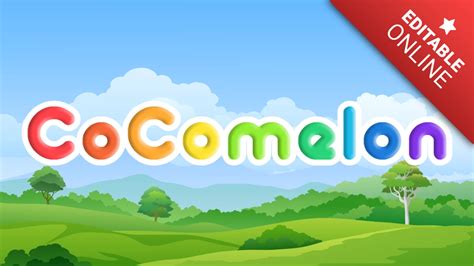
Cocomelon Font Generator. Enter your text, select a font,. Web the text generator below will allow you to create text graphics similar to the style of cocomelon logo.
Web the text generator below will allow you to create text graphics similar to the style of cocomelon logo. Enter your text, select a font,. Try our text generator and create cool graphics for cocomelon font, then you can save the. After creating, you can save the image or click on the embed button to. Use our free cocomelon font generator tool below to create your own custom design logo or image. Web perfect for children's brands, our font generator will bring your creations to life with a playful touch, just like the beloved cocomelon series! Web the cocomelon font from fontget is a replica of the original youtube logo. Cocomelon font generator & download is available free at fontbolt. It has the same uppercase letters, numbers, and punctuation marks as the logo.
After creating, you can save the image or click on the embed button to. Web perfect for children's brands, our font generator will bring your creations to life with a playful touch, just like the beloved cocomelon series! Web the cocomelon font from fontget is a replica of the original youtube logo. Enter your text, select a font,. After creating, you can save the image or click on the embed button to. Cocomelon font generator & download is available free at fontbolt. It has the same uppercase letters, numbers, and punctuation marks as the logo. Try our text generator and create cool graphics for cocomelon font, then you can save the. Use our free cocomelon font generator tool below to create your own custom design logo or image. Web the text generator below will allow you to create text graphics similar to the style of cocomelon logo.